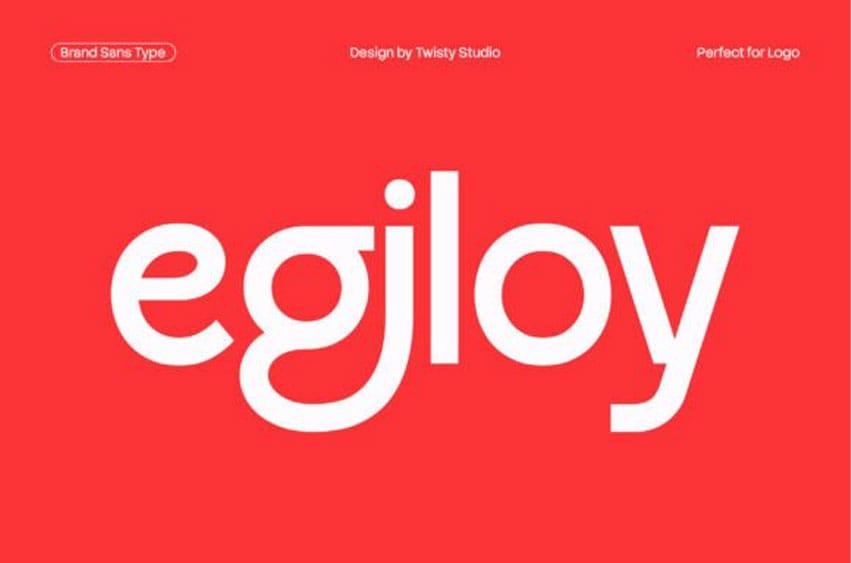
Egiloy Font is a clean minimalist brand sans typeface designed to deliver clarity, precision, and a refined modern aesthetic. With its simple forms, balanced proportions, and subtle detailing, Egiloy creates a calm and professional visual tone that feels both contemporary and timeless.
Built with branding in mind, this typeface emphasizes readability and consistency, making it highly effective across a wide range of applications.